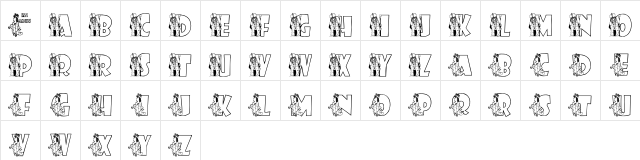
KGROYALITY Regular Font Preview
KGROYALITY Regular
KGROYALITY Regular Font Details
Design Context for KGROYALITY Typeface
KGROYALITY is a composed and adaptable typeface that performs quietly and consistently across a wide range of design contexts.